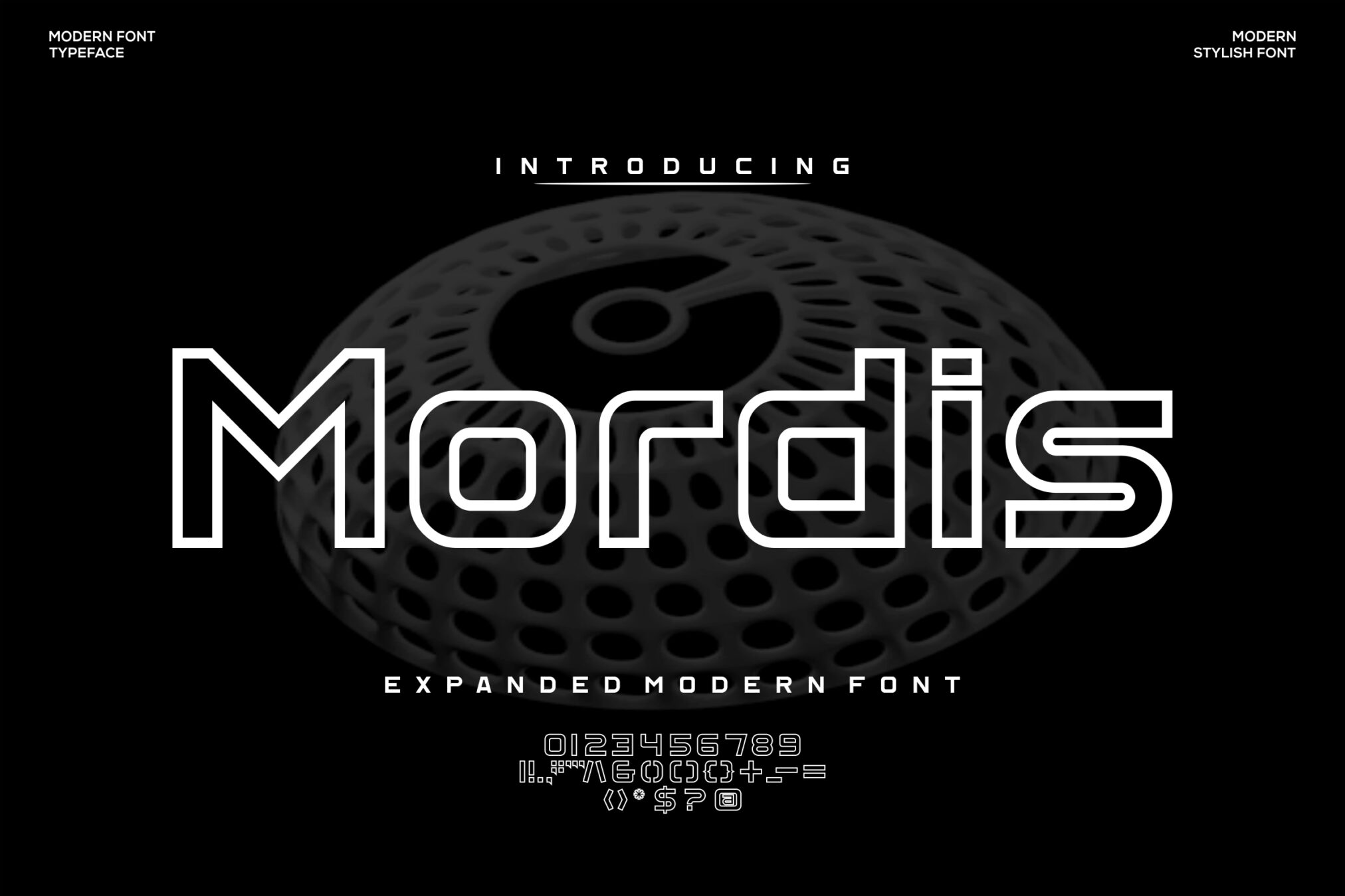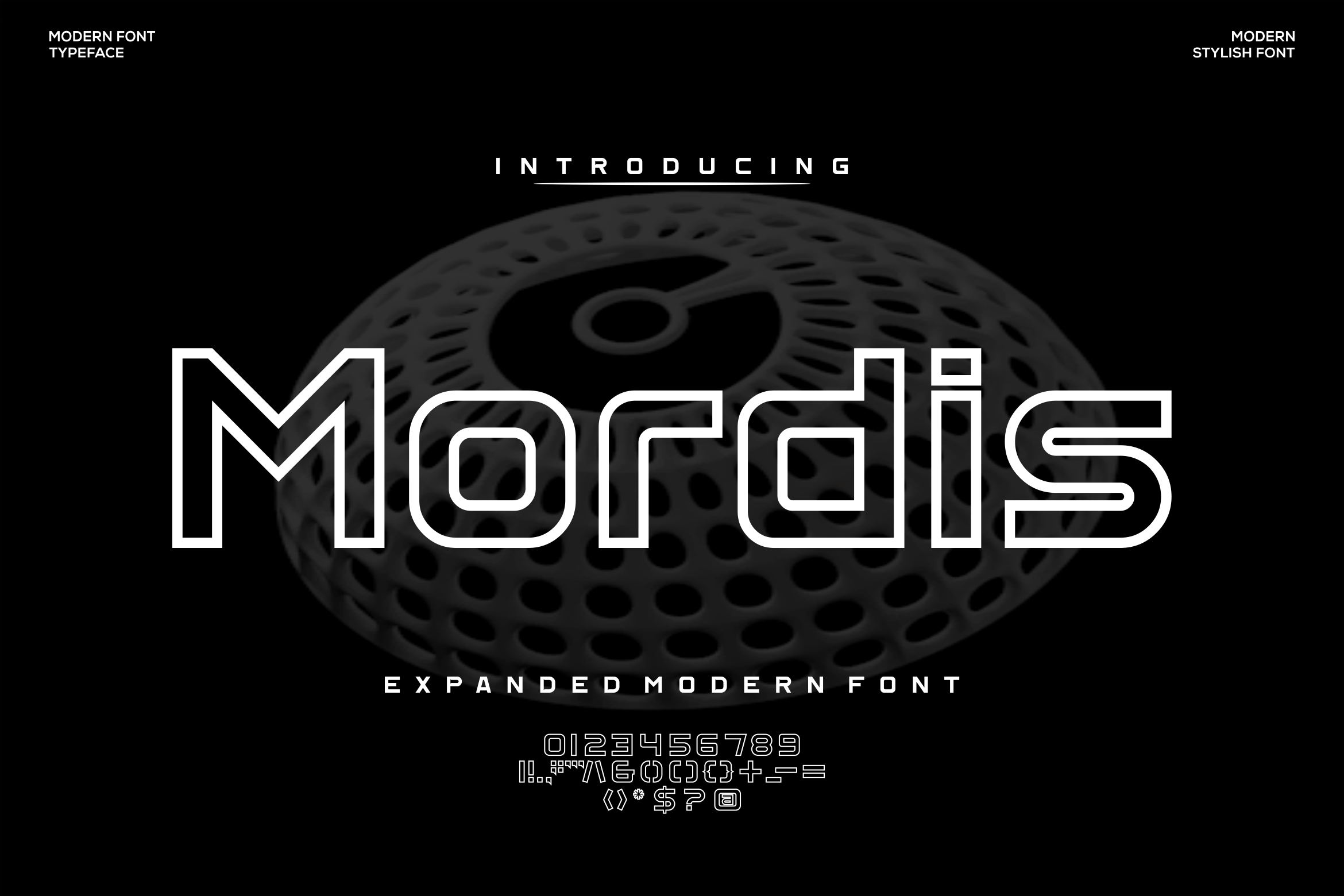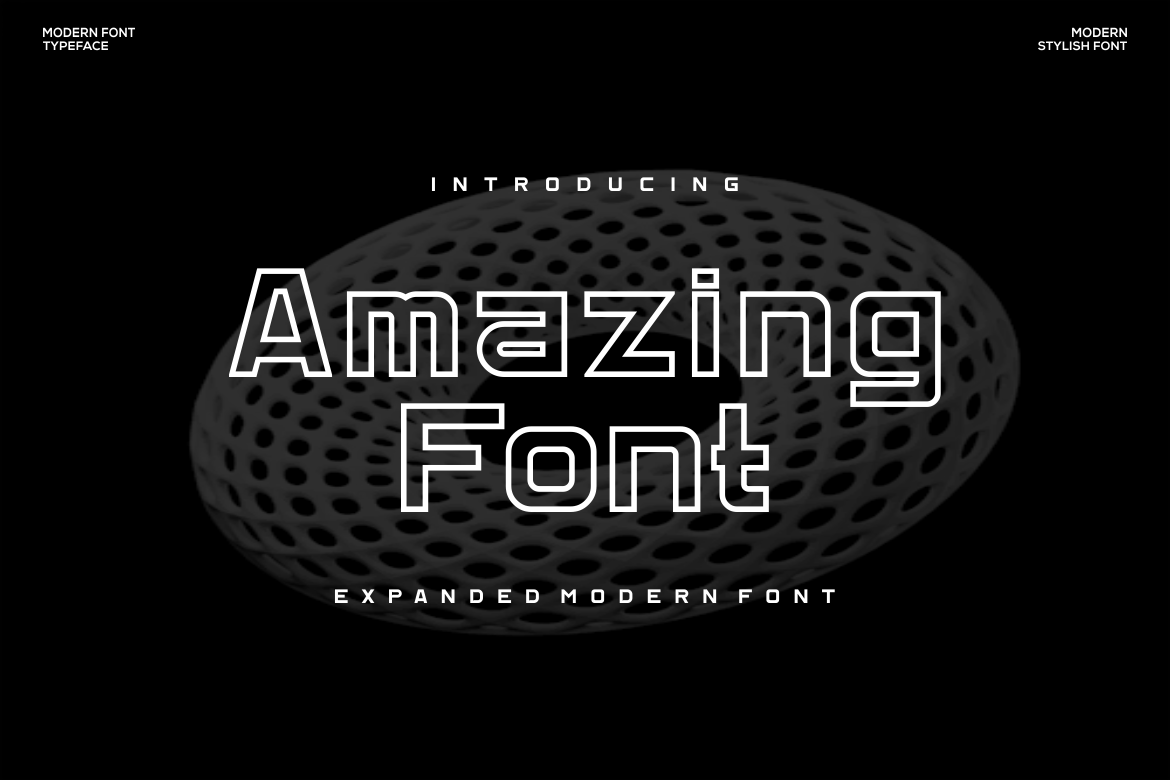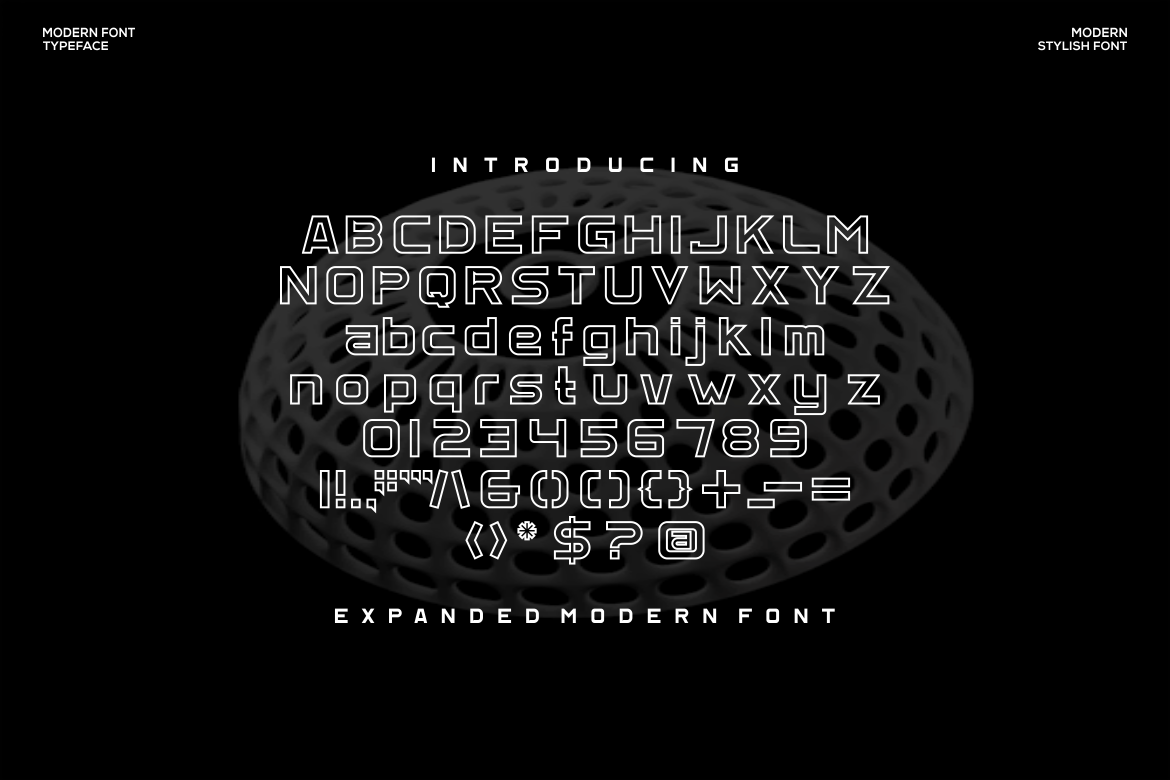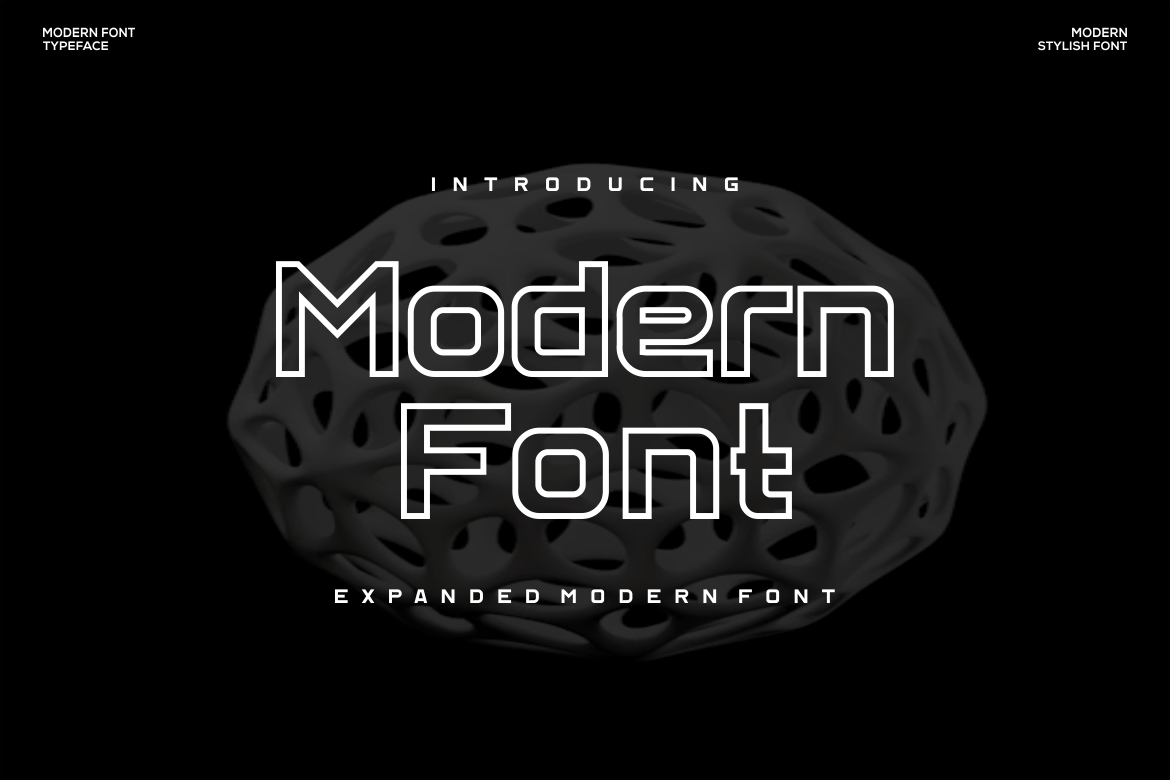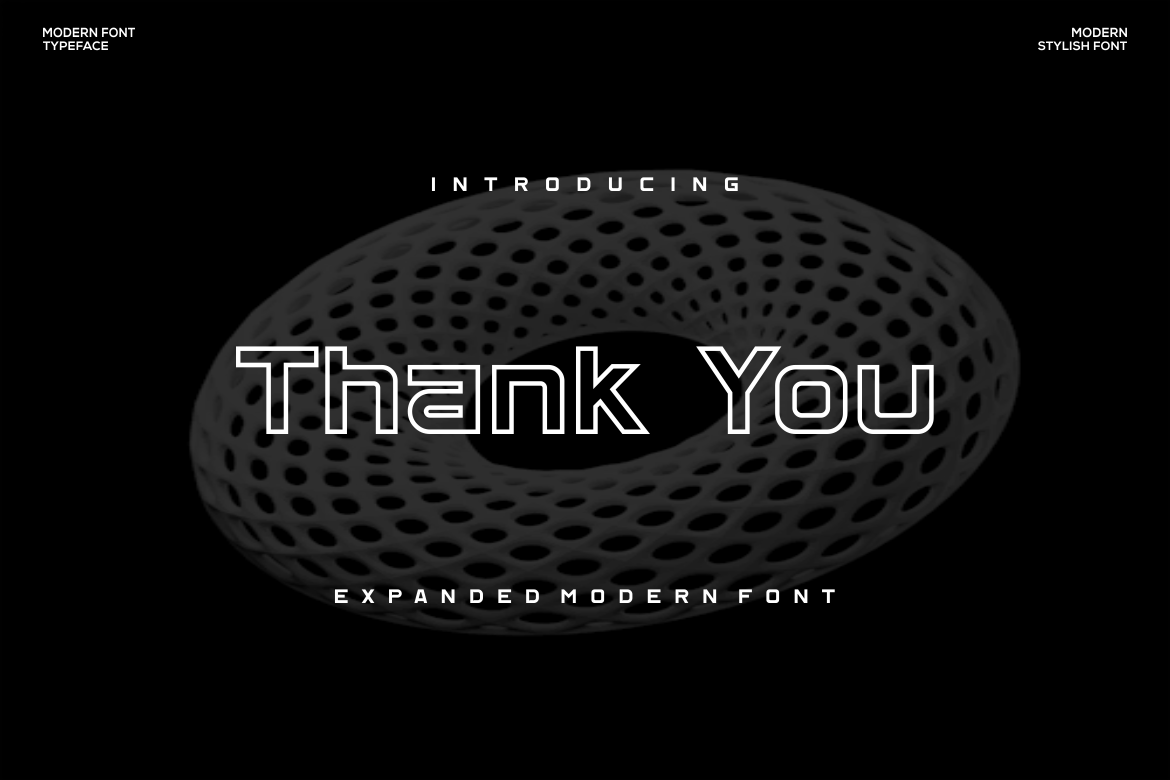
Introducing our new product **Kurdis Font** – Modern Font
**Kurdis Font** – Modern Font is a bold and authentic display font. The font is suitable for any branding project like logo, esport, and many more. outstanding in a wide range of contexts.